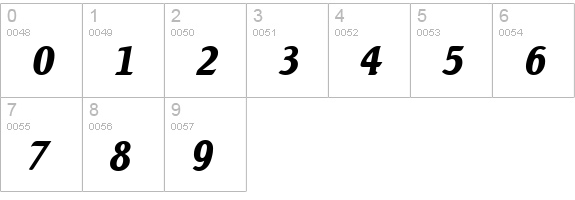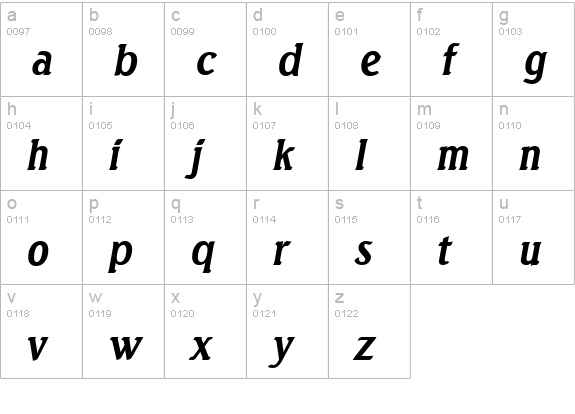
SeagullSerial-BoldItalic is a dynamic and eye-catching font that combines boldness with a touch of elegance. Its italicized style adds a sense of movement and sophistication to any text, making it perfect for headers, titles, and other design elements that need to stand out. The sleek curves and sharp lines of SeagullSerial-BoldItalic give it a modern and stylish look that is sure to capture attention. Best of all, SeagullSerial-BoldItalic is available for free download at FontsMarket.com. This means you can easily add this striking font to your collection without any cost. Whether you're a designer looking for a new font to enhance your projects or simply someone who appreciates beautiful typography, SeagullSerial-BoldItalic is a great choice. Download it today and elevate your designs with this versatile and visually appealing font.